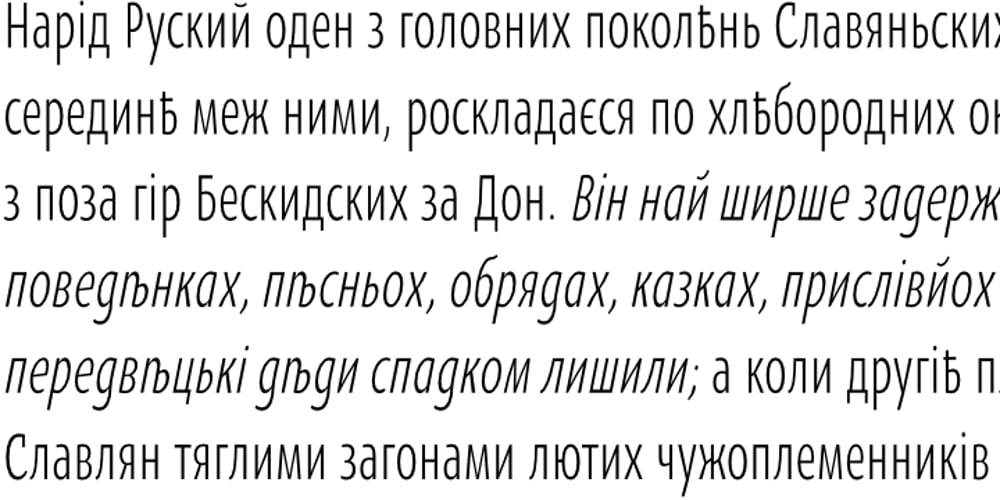
Oksana Sans Compressed
Oksana Sans Compressed font
Oksana Sans Compressed Font Family was designed by Andrij Shevchenko and published by AndrijType. Oksana Sans Compressed contains 13 styles and family package options. Oksana Sans Compressed is the most skinny part of Oksana Sans font family, but still it retains most features of this humanist sans serif. The Compressed version is designed to get most of your page and fill a minimum space with maximum information. It can be useful in multiple columns typesetting — like magazines, newspapers or business documentation. Oksana Sans Compressed could be a good minor companion for other Oksana fonts as well. It has six weights from Thin to Heavy plus free and funny Fat Compressed Italic face, supports Western, Central European, Baltic Latin and Slavic Cyrillic codepages. Old-style digits, some ligatures, alternative characters and modern currency signs are also included.